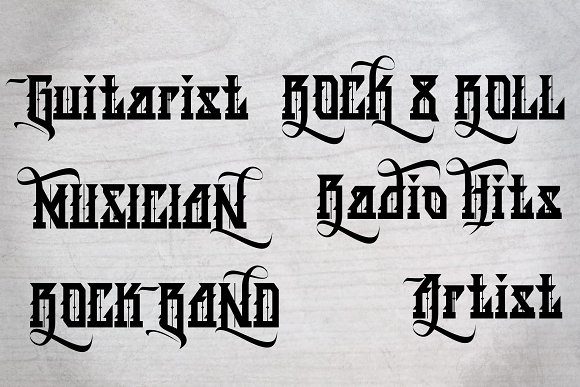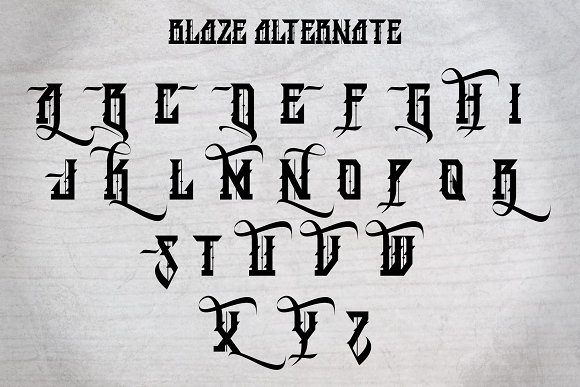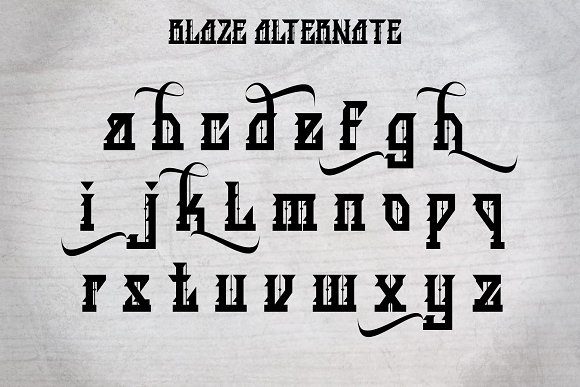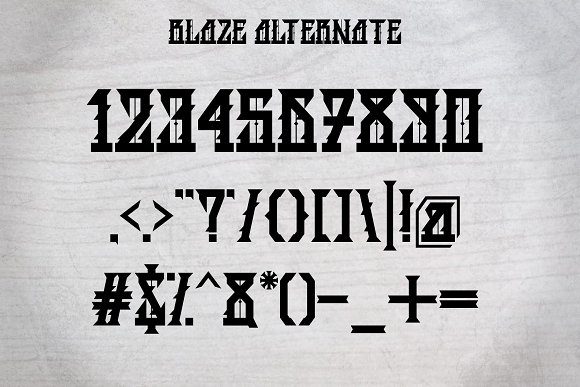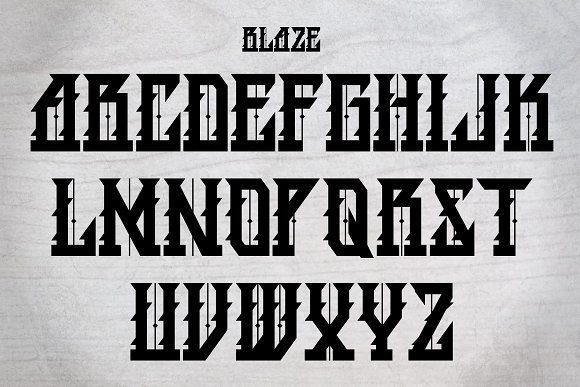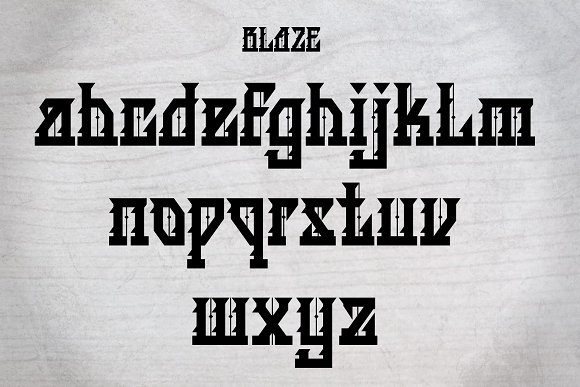
Introducing the BLAZE Font: A Unique Blackletter Font Inspired by Classic Rock Band Logos
Are you a designer or crafter looking for a font that adds a touch of rebellion and edginess to your projects? Look no further than the BLAZE font, a unique blackletter font inspired by the iconic logos of classic rock bands. In this article, we’ll dive into the world of the BLAZE font, exploring its features, benefits, and uses, as well as provide tips and tricks for incorporating it into your designs.
What is the BLAZE Font?
The BLAZE font is a one-of-a-kind blackletter font that draws inspiration from the bold and daring logos of classic rock bands. With its sharp, angular lines and bold, expressive letterforms, the BLAZE font is perfect for designers and crafters who want to add a touch of attitude and personality to their projects.
Whether you’re designing a logo, creating a poster, or crafting a DIY project, the BLAZE font is sure to make a statement. Its unique blend of traditional blackletter elements and modern design sensibilities makes it a versatile and eye-catching choice for a wide range of applications.
Features of the BLAZE Font
So what sets the BLAZE font apart from other blackletter fonts on the market? Here are just a few of its key features:
- Unique letterforms: The BLAZE font features bold, expressive letterforms that are inspired by the iconic logos of classic rock bands.
- Sharp, angular lines: The font’s sharp, angular lines give it a bold and edgy feel that’s perfect for designers and crafters who want to add a touch of rebellion to their projects.
- Highly legible: Despite its bold and expressive letterforms, the BLAZE font is highly legible, making it perfect for use in a wide range of applications, from logos and posters to crafts and DIY projects.
- Versatile: The BLAZE font is a versatile choice that can be used in a wide range of applications, from formal designs to more informal, DIY projects.
Benefits of Using the BLAZE Font
So why should you choose the BLAZE font for your next design or crafting project? Here are just a few of the benefits of using this unique and eye-catching font:
- Adds a touch of attitude: The BLAZE font adds a touch of attitude and personality to any project, making it perfect for designers and crafters who want to create something bold and eye-catching.
- Stand out from the crowd: With its unique letterforms and bold, angular lines, the BLAZE font is sure to help your project stand out from the crowd.
- Perfect for music-inspired projects: The BLAZE font is a natural fit for music-inspired projects, such as concert posters, album art, and music festival branding.
- Easy to use: The BLAZE font is easy to use and can be easily integrated into a wide range of design and crafting applications.
Tips and Tricks for Using the BLAZE Font
Here are a few tips and tricks for using the BLAZE font in your designs and crafting projects:
- Pair with bold colors: The BLAZE font pairs perfectly with bold, bright colors that add to its edgy, rebellious vibe.
- Experiment with different sizes: The BLAZE font looks great in a wide range of sizes, from small and subtle to large and bold.
- Use for headlines and titles: The BLAZE font is perfect for use in headlines and titles, where its bold and expressive letterforms can really make a statement.
- Get creative with textures and patterns: The BLAZE font looks great with textures and patterns that add to its edgy, rock-inspired vibe.
| Font Name | BLAZE Font |
| Author | EN86-21 |
In conclusion, the BLAZE font is a unique and eye-catching blackletter font that’s perfect for designers and crafters who want to add a touch of attitude and personality to their projects. With its bold, angular lines and expressive letterforms, the BLAZE font is sure to make a statement in any application. Whether you’re designing a logo, creating a poster, or crafting a DIY project, the BLAZE font is a versatile and highly legible choice that’s sure to help your project stand out from the crowd.